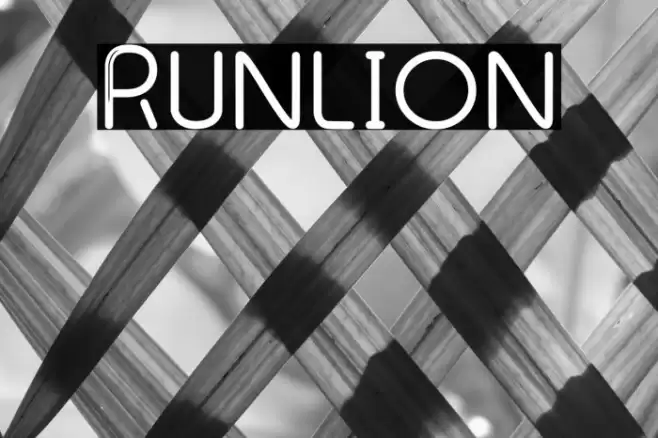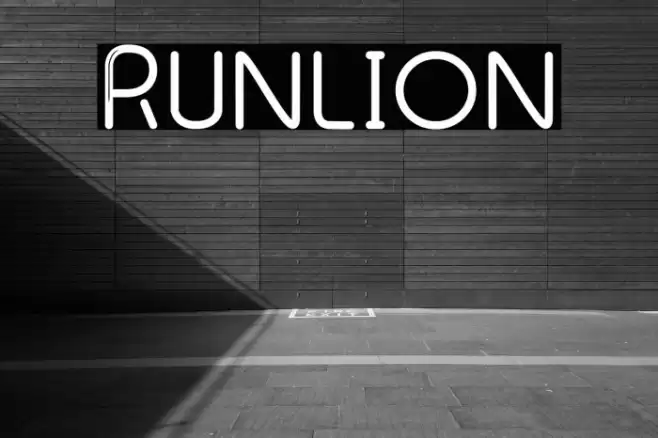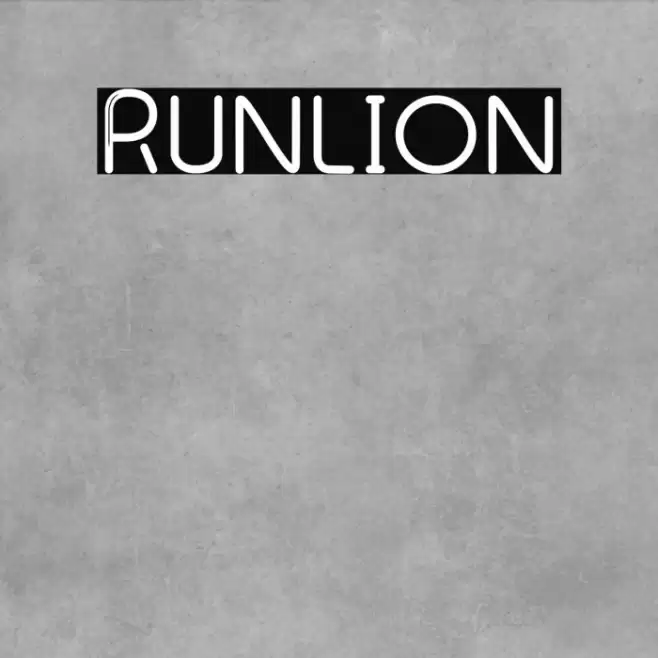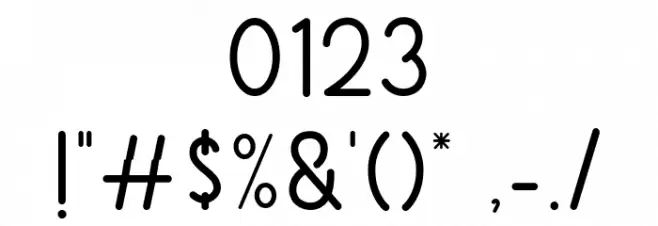
Runlion Font
Runlion Description
This font features a modern and sleek design with a geometric and minimalist approach. The characters are constructed with clean lines and rounded edges, giving it a contemporary feel. The uppercase letters have a uniform height and width, creating a balanced and harmonious appearance. The lowercase letters maintain the same geometric style, ensuring consistency throughout the typeface. The numerals are clear and easy to read, with a similar rounded and geometric design. The special characters are well-integrated, maintaining the overall aesthetic of the font. This typeface is versatile and can be used in various design projects that require a modern and clean look.
A modern, geometric font with clean lines and rounded edges from Uncategorized fonts.